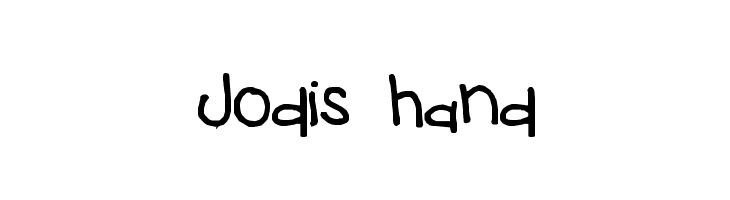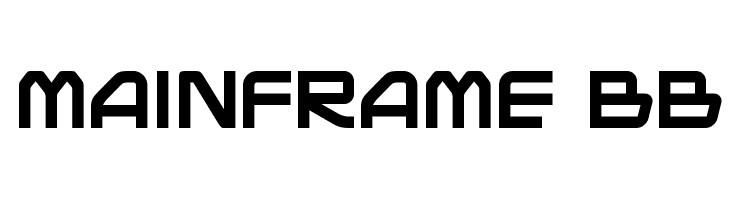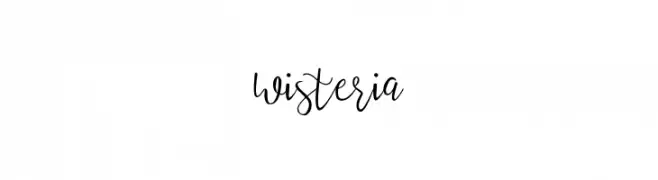
A modern, geometric font with clean lines and a minimalist style.
An elegant script font with flowing, interconnected letters and decorative swashes.
A playful, handwritten-style font with rounded, flowing letterforms.
A playful, bold font with rounded, bubbly characters ideal for fun and whimsical designs.
A bold, flowing script font with elegant curves and smooth connections.